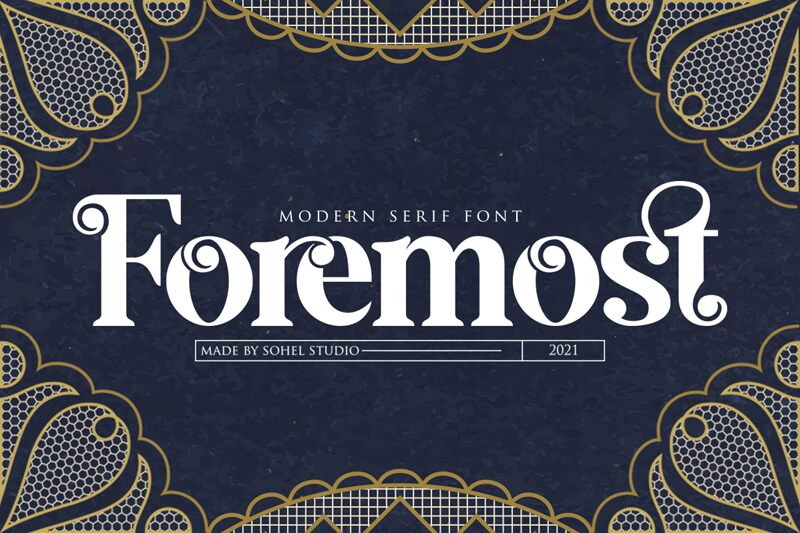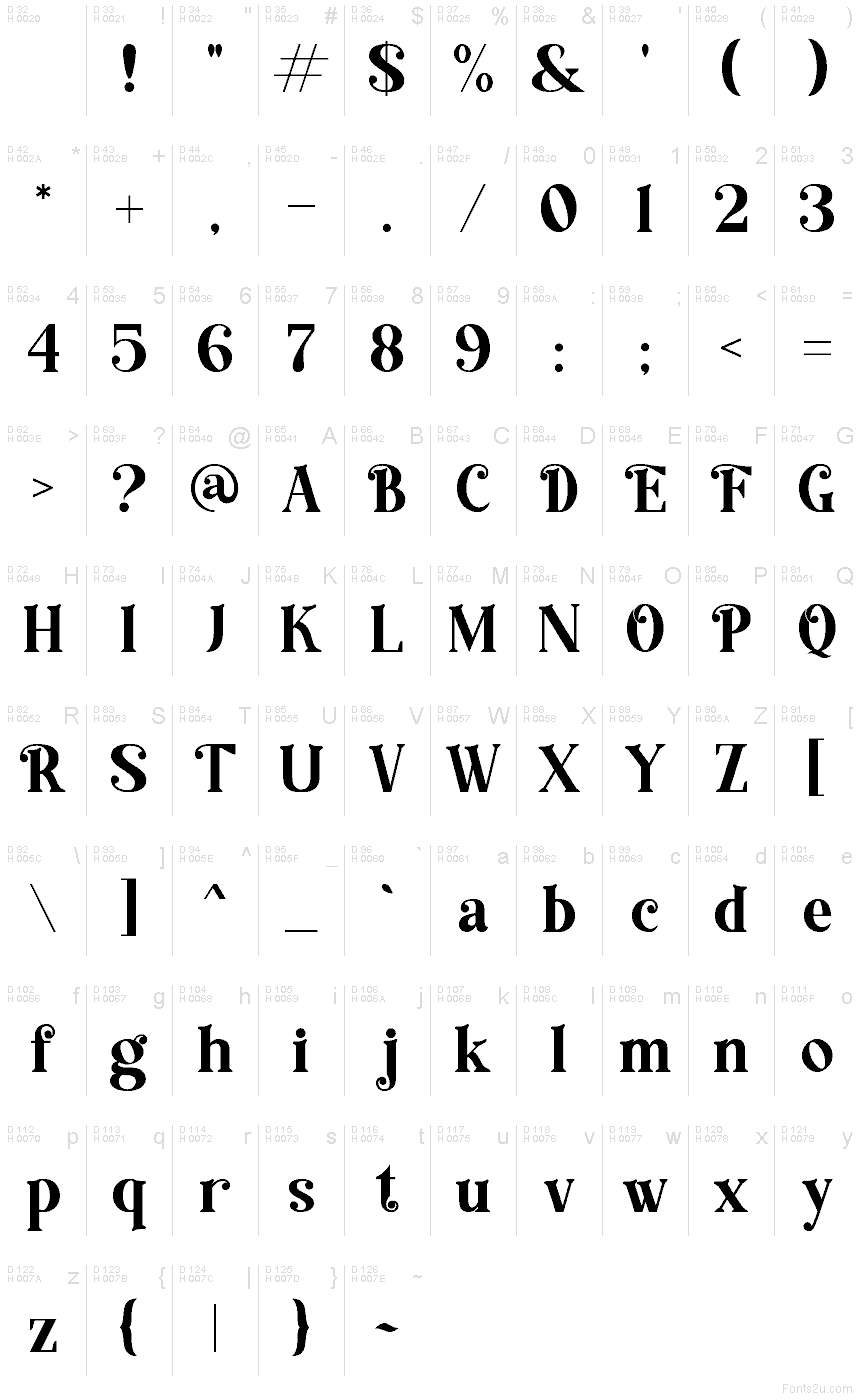
Foremost
Foremost font by Sohel Studio is a free Christmas holiday typeface that wraps your lettering in a rich, storybook charm. Bold, inky strokes and sweeping curves give each word the weight of a classic greeting card, while the playful ball endings feel like ornaments tucked onto every letter. It’s festive without being cheesy, so your seasonal designs feel warm, sophisticated, and unmistakably celebratory.
Using Foremost for headlines, logo lockups, packaging, invitations, cards, and social media graphics instantly gives them a cozy, winter-market mood. This free font works beautifully at larger sizes where its sculpted curves and dramatic silhouettes can breathe. Pair Foremost with a clean sans-serif for body text to keep layouts readable while letting the holiday flair shine in titles and short phrases.